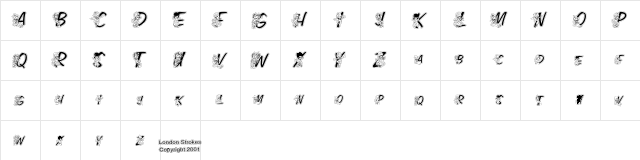
LMS Color Kids Outlined Regular
| Designer | London Stokes |
Design Context for LMS Color Kids Outlined Typeface
LMS Color Kids Outlined has an approachable, lighthearted character — its loose, expressive forms are well-suited to children's content, casual branding, and fun-first design.
Well-suited to food and beverage brands with personality, educational materials, and fun-forward identities.
Font Pairing: Pairs well with a rounded or humanist sans for body copy, maintaining the friendly tone without relying on LMS Color Kids Outlined to carry extended reading.
Pro Tip: Use LMS Color Kids Outlined at larger display sizes where its expressive character can land. Pair with a clean, simple sans for body copy to maintain readability.